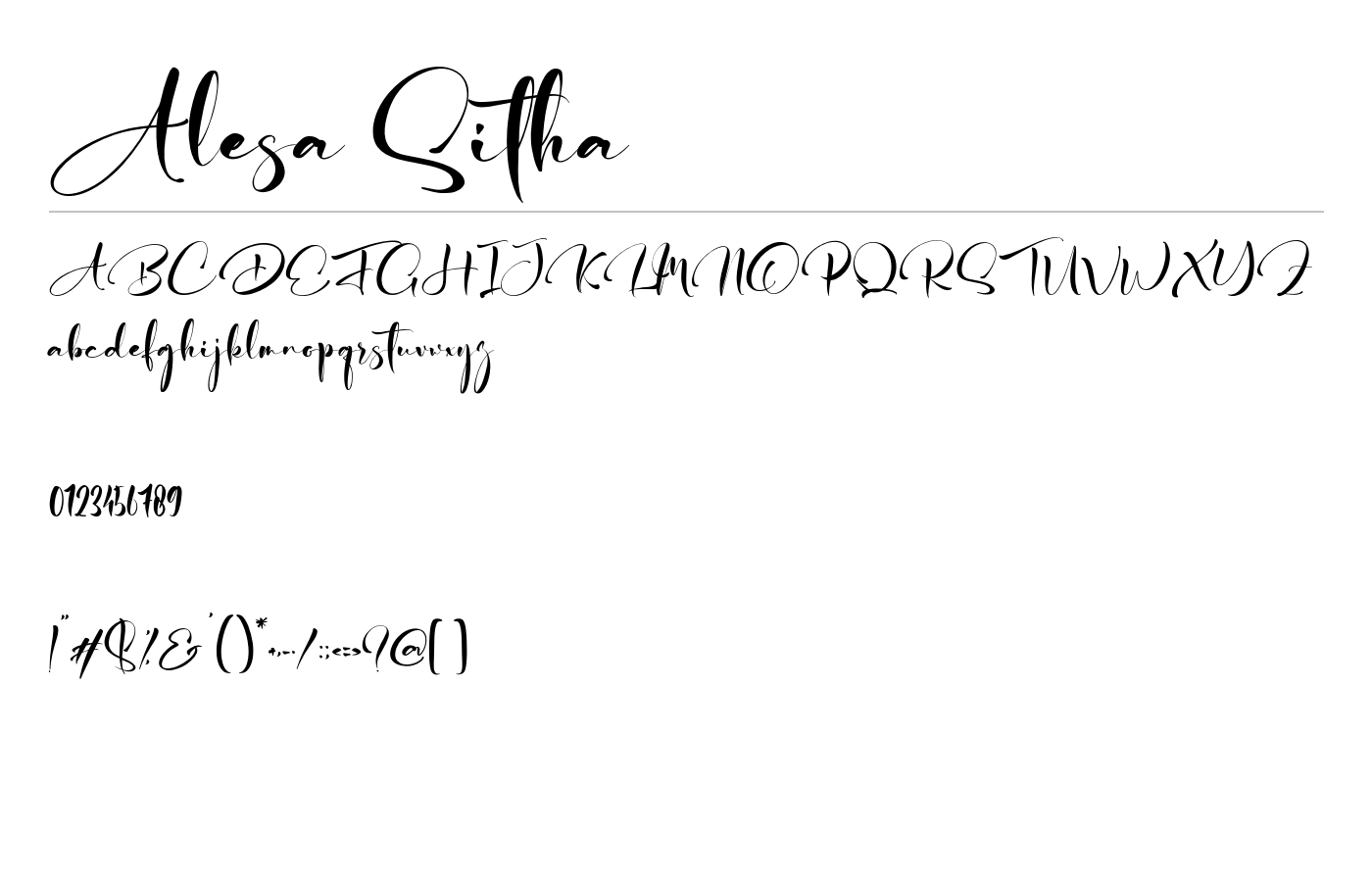
Alesa Sitha is an elegant script font featuring flowing, calligraphic strokes with a high contrast between thick and thin lines. Its graceful, cursive letterforms exude a sophisticated and feminine charm, making it ideal for invitations, branding, and any design seeking a stylish, luxurious feel. The font works best in display uses such as logos and headlines where its delicate details can shine.
Alesa Sitha Font
About Alesa Sitha Font
| Font family | Alesa Sitha Font |
| Designer | Pineungtype |